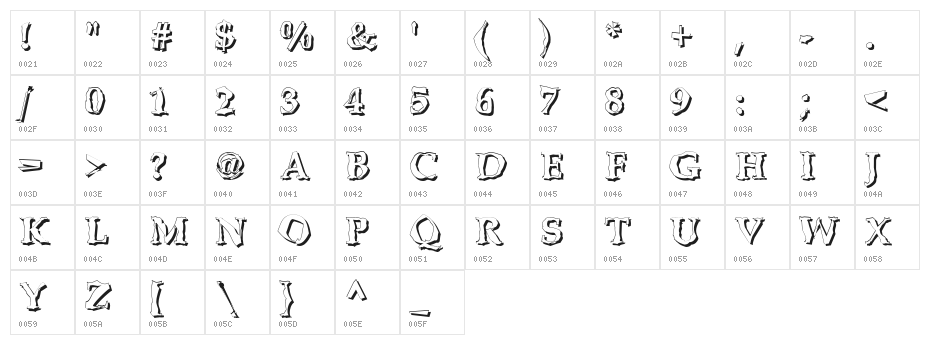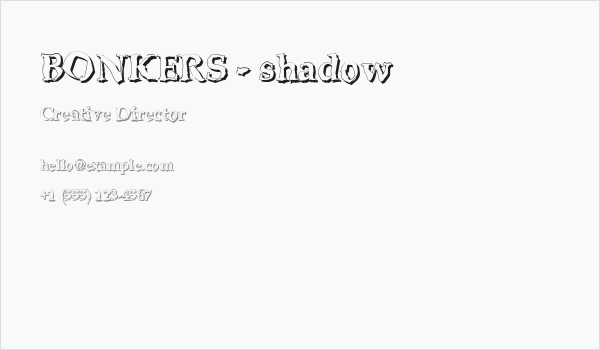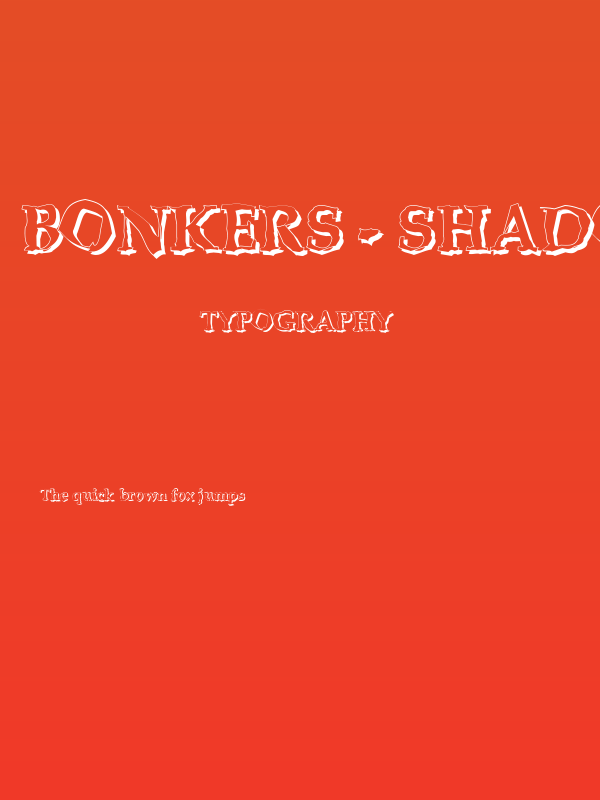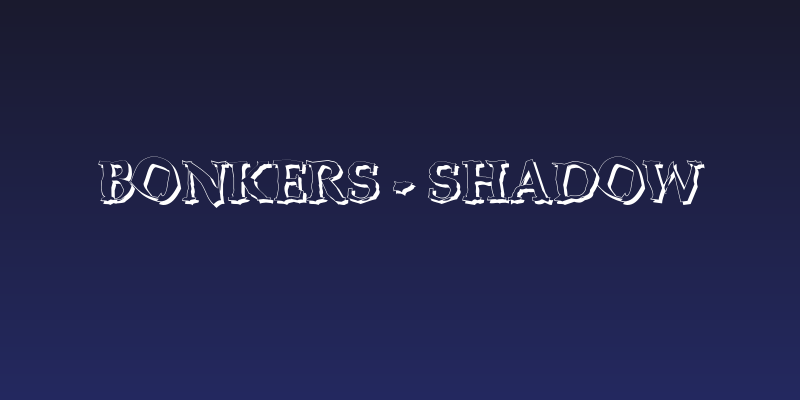
BONKERS - shadow Font
BONKERS - shadow Description
This font features a bold, shadowed style that gives each character a three-dimensional appearance. The letters are designed with a playful, slightly irregular outline that adds a sense of movement and energy. The shadow effect is pronounced, creating a strong contrast between the foreground and background, which enhances readability while maintaining a decorative flair. The uppercase and lowercase letters maintain a consistent style, with the numerals and special characters following suit. This font is ideal for projects that require a fun, eye-catching aesthetic.
| Proposed Projects | Ideal for posters, comic books, children's books, and playful branding projects. |